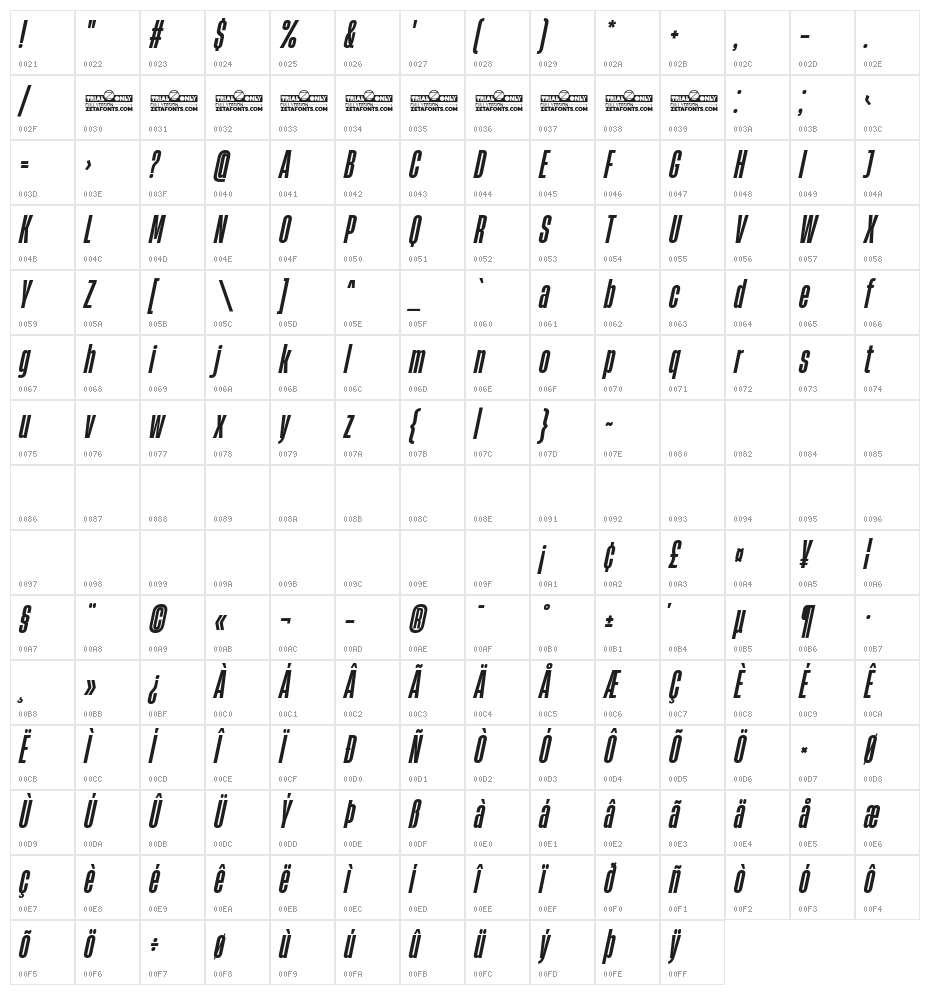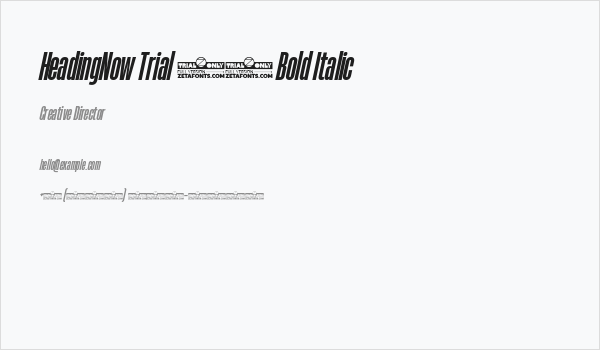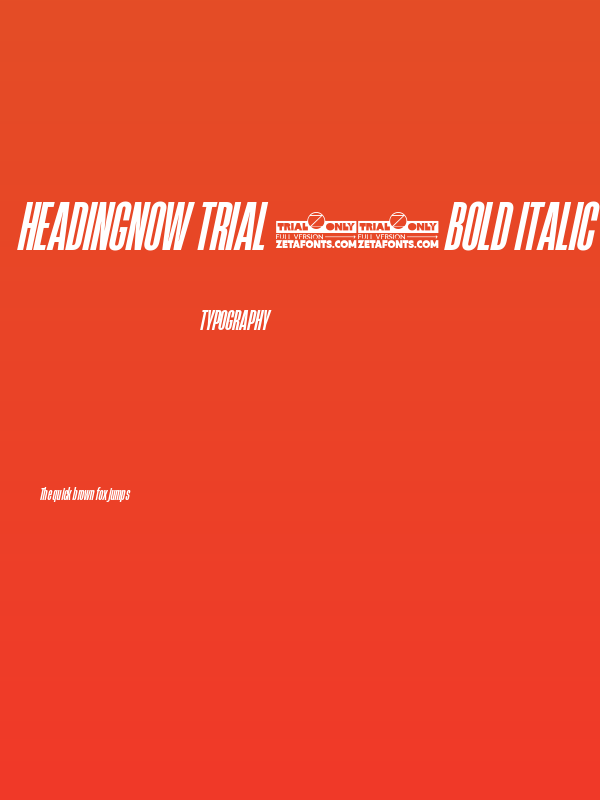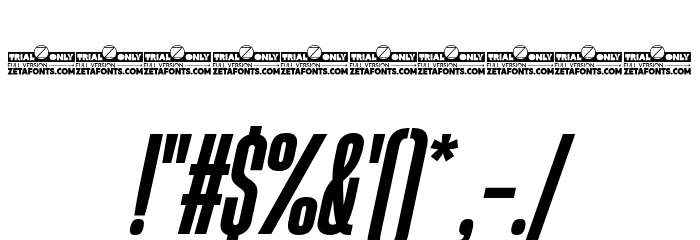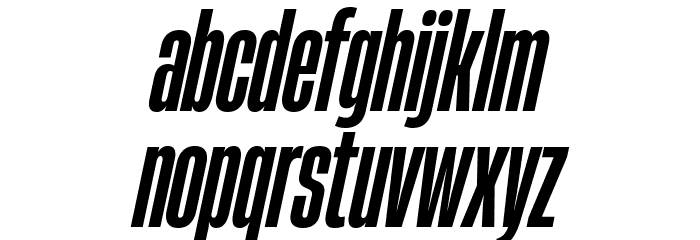
HeadingNow Trial 26 Bold Italic Font
HeadingNow Trial 26 Bold Italic Description
This font exhibits a bold and dynamic presence with its italicized style, creating a sense of movement and urgency. The characters are tall and narrow, contributing to a condensed appearance that maximizes vertical space. The strokes are thick and consistent, providing a strong visual impact. The uppercase and lowercase letters maintain a cohesive design, ensuring readability while adding a modern flair. The numerals and special characters are crafted with the same boldness, making them suitable for attention-grabbing headlines or impactful statements. Overall, this font is designed to stand out and convey a sense of strength and modernity.
| Proposed Projects | Ideal for headlines, advertising, branding, and poster design. |